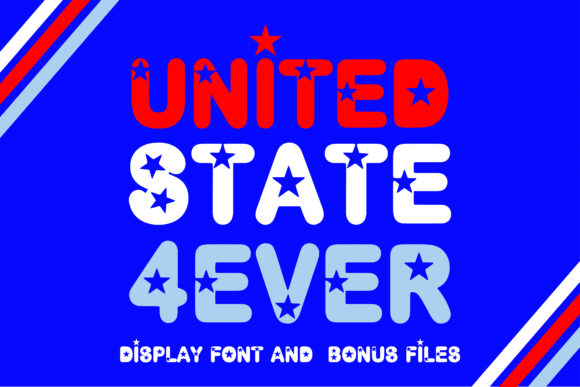
Calling all creative spirits! Unleash your patriotic fervor with United State 4 Ever Font, a stunning display font that embodies the vibrant energy of Independence Day.
With its captivating curves and playful characters, United State 4 Ever transforms your designs into a celebration of freedom and unity. Imagine the joy of crafting Fourth of July greetings adorned with this joyful font, adding a touch of cheer to every card and message.
Elevate your brand's message with United State 4 Ever, the perfect font for evoking a sense of national pride and camaraderie. Design eye-catching logos, vibrant posters, and captivating social media graphics that ignite a spark of patriotism in your audience.
Dive into the world of United State 4 Ever and discover a font that captures the essence of the American spirit. Let its bold strokes and spirited curves inspire your creativity and spread joy with every design you create.